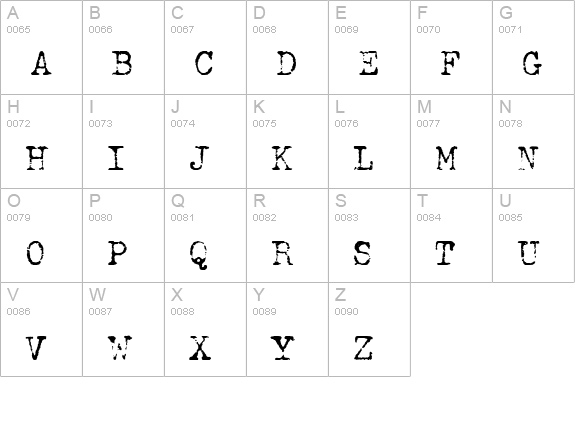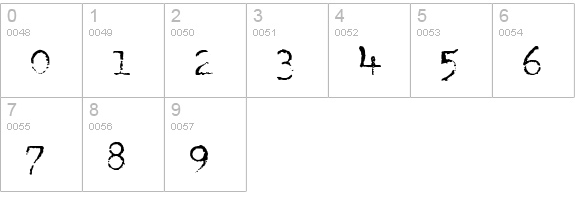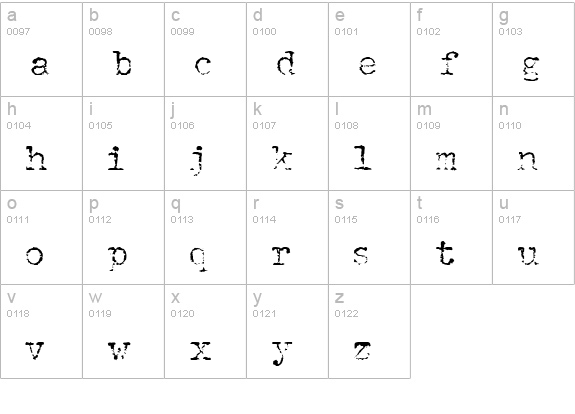
PFDumbOldTypewriter One Light Font Details
PFDumbOldTypewriter One Light is a refined, elegant variant in the PFDumbOldTypewriter typeface family \xE2\x80\x94 well suited to elegant body text, refined sub-headings, and luxury branding.
PFDumbOldTypewriter One Light font is a charming and nostalgic typeface that evokes the classic aesthetic of an old typewriter. Its delicate and slightly uneven letterforms carry a sense of authenticity and character, perfect for adding a touch of vintage flair to your designs. This font exudes a sense of warmth and familiarity, making it ideal for projects that require a touch of nostalgia or a unique retro vibe. Best of all, PFDumbOldTypewriter One Light font is available for free download at FontsMarket.com. This means you can easily access and use this delightful typeface in your personal and commercial projects without any additional cost. Embrace the timeless appeal of PFDumbOldTypewriter One Light font and infuse your designs with a touch of old-world charm and elegance.